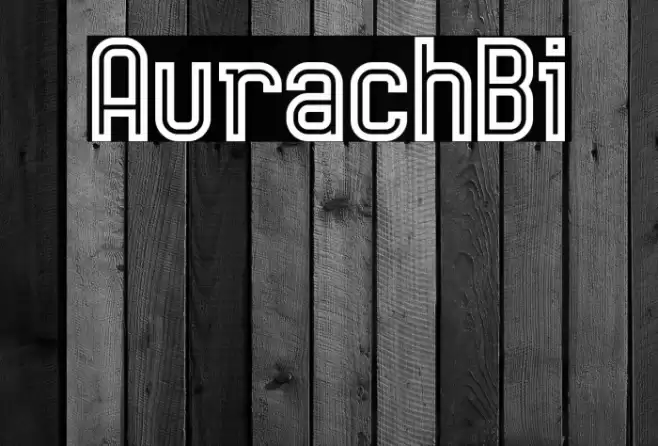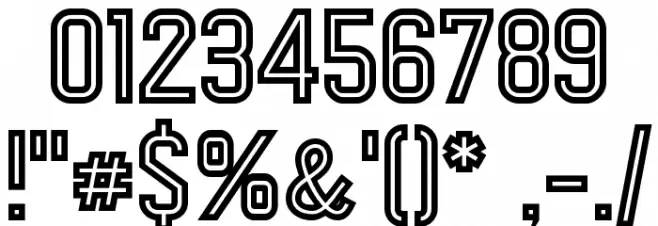
AurachBi Font
AurachBi Description
This font features a bold, geometric design with a double-line structure that gives it a modern and futuristic appearance. The uppercase and lowercase letters maintain a consistent height and width, creating a uniform look. The characters are outlined, providing a hollow effect that enhances its visual appeal. The numbers and special characters follow the same design principles, ensuring cohesion across all elements. This font is ideal for projects that require a contemporary and eye-catching style.
A bold, geometric, double-line font with a modern and futuristic look from Uncategorized fonts.
- Proposed Projects: Ideal for branding, posters, headlines, and digital media that require a striking and modern aesthetic.